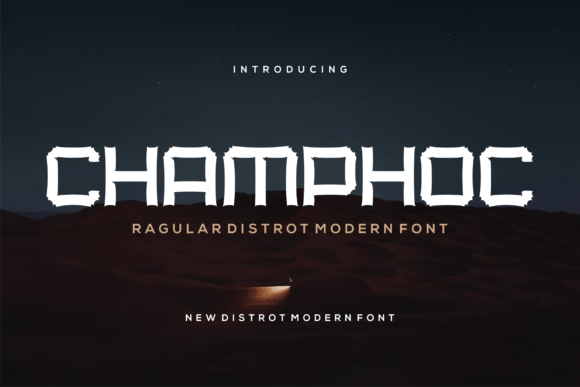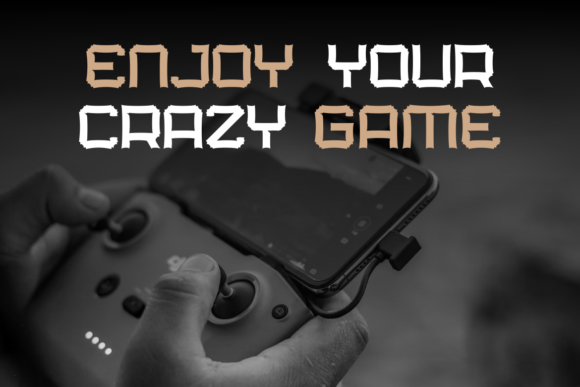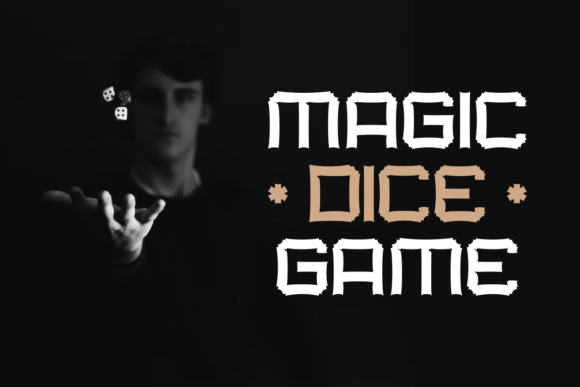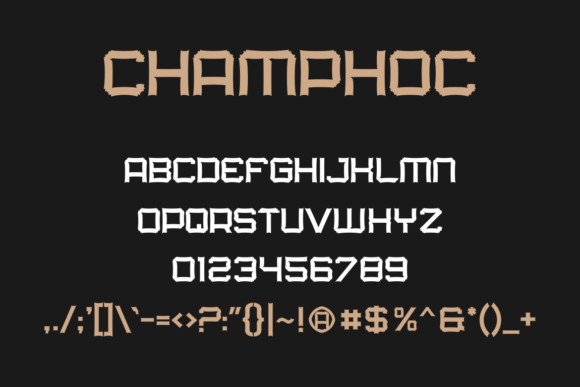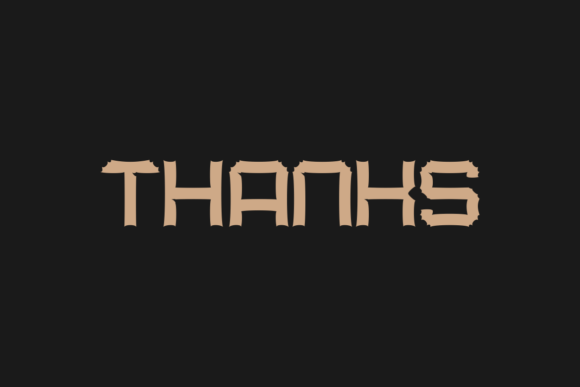
Unlock the Power of Champhoc Font: Elevate Your Creative Projects
You know that moment when you’re working on a project, and you need that one special element to make it truly stand out? For many designers, that moment comes when they discover a font that perfectly captures the essence of their vision. If you’re looking for that game-changing font, look no further than the Champhoc Font.
This cool and unique display font is designed to add a touch of sophistication and elegance to any creative project. Whether you’re working on a branding campaign, a logo design, or a digital art piece, the Champhoc Font is the perfect addition to elevate your work. Its versatility and unique character make it a valuable asset for designers looking to push the boundaries of their creativity.
Champhoc Font Key Features
- Unique Characteristics: Champhoc Font boasts a unique blend of modern and traditional design elements, featuring clean lines, geometric shapes, and subtle nuances that set it apart from other fonts.
- Font Style: The font is available in a single style, making it ideal for use in a variety of contexts, from body text to headings and titles.
- Font Weight: The font is available in a single weight, making it suitable for use in a variety of contexts, from body text to headings and titles.
Champhoc Font Review
I recently had the chance to work with the Champhoc font, and I must say it’s a unique and quirky addition to any design project. Here are some of its strengths: ✨
- Fun and playful feel – Champhoc font adds a lighthearted and humorous vibe to any text.
- Good for headings and titles – Its bold and eye-catching design makes it perfect for grabbing attention.
- High legibility – Despite its unusual design, Champhoc font is surprisingly easy to read.
- Limited versatility – Champhoc font might not be the best choice for body text or large blocks of text.
- Not ideal for formal projects – Its playful nature might not be suitable for professional or formal designs.
- Requires careful use – Champhoc font can be overwhelming if used excessively, so it’s essential to use it sparingly.
Overall, I think Champhoc font is a great addition to any designer’s toolkit, but it’s essential to use it thoughtfully and in the right context.
The Champhoc Font is ideal for:
- Designing modern and minimalist branding materials.
- Creating elegant and sophisticated digital content.
- Adding a touch of sophistication to presentations and reports.
Alternatives to Champhoc Font
Merriweather Font is a classic serif font that is ideal for body text and long passages of text. It is highly legible and has a timeless feel to it.
Merriweather Font is similar to Champhoc Font in its classic and timeless feel, but it has a more traditional and formal look to it. It is a better choice when you need a font that exudes professionalism and sophistication.
Open Sans Font is a modern sans-serif font that is highly legible and versatile. It is ideal for use in digital media, such as websites and mobile apps.
Open Sans Font is different from Champhoc Font in its clean and minimalist design. It is a better choice when you need a font that is modern and fresh, but still easy to read.